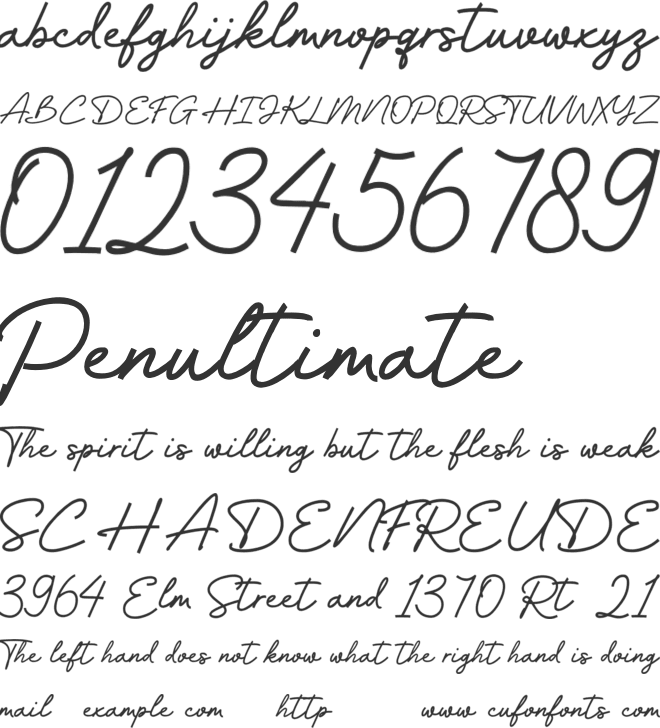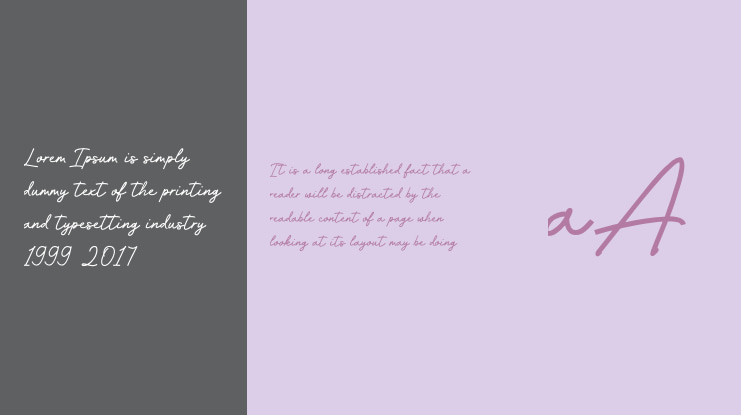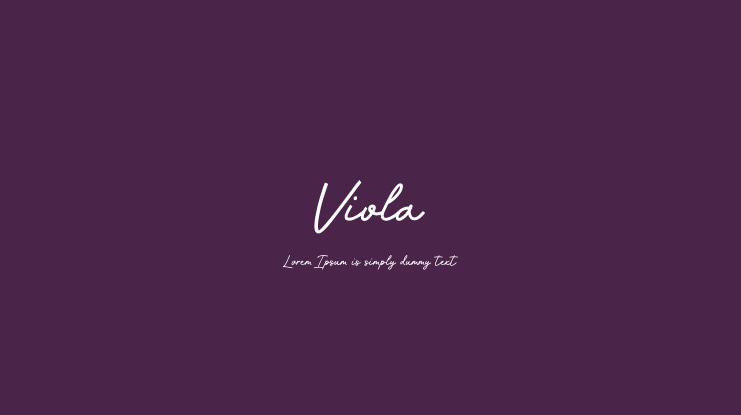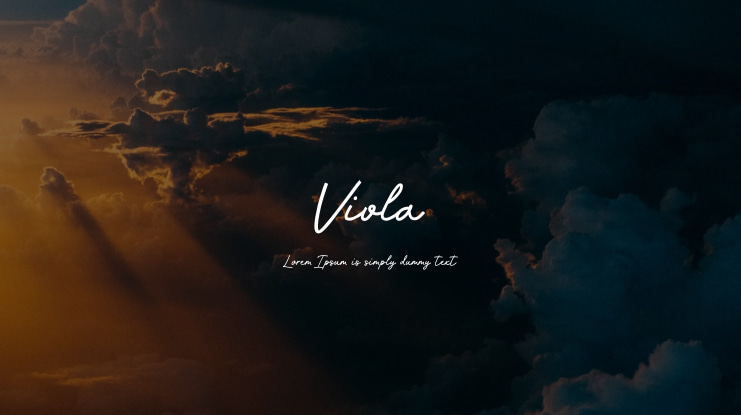
Viola Font
Introducing Viola Handwritten Font, a delightful combination of sophistication and femininity. The sleek lines and elegant curves of the Viola font bring a contemporary and stylish vibe to any project.
This font is specifically designed for use in logos, headings, signage, and various formal applications like invitations, labels, magazines, books, greeting cards, packaging, fashion, makeup, stationery, novels, and advertisements. It is crafted to enhance the beauty and uniqueness of your digital creations.